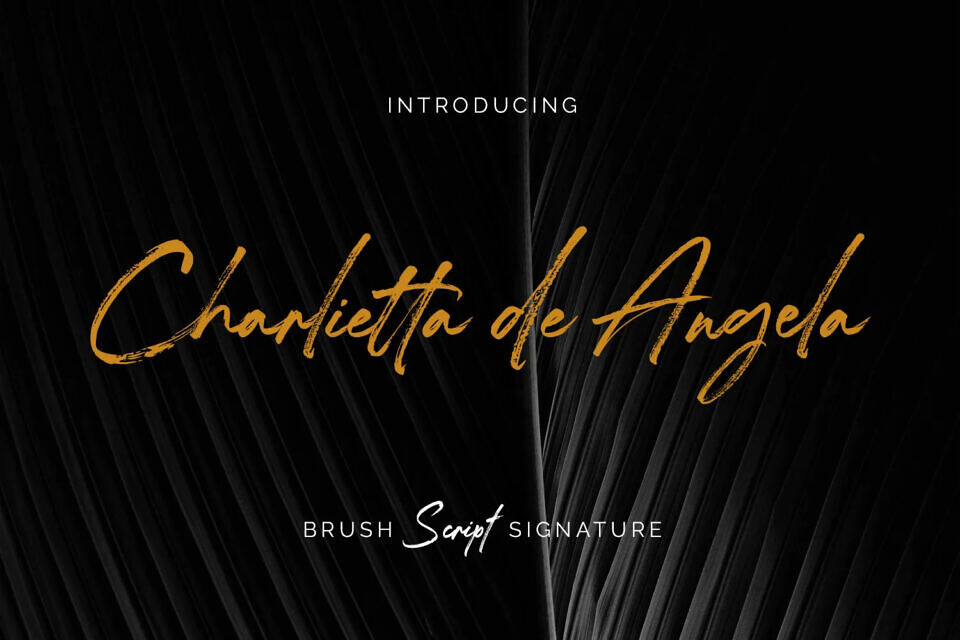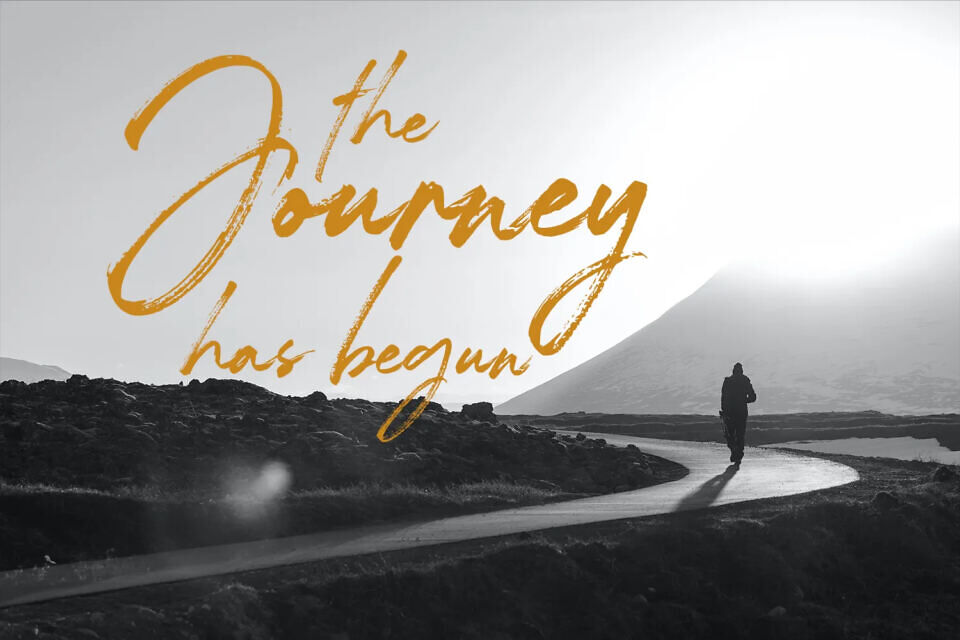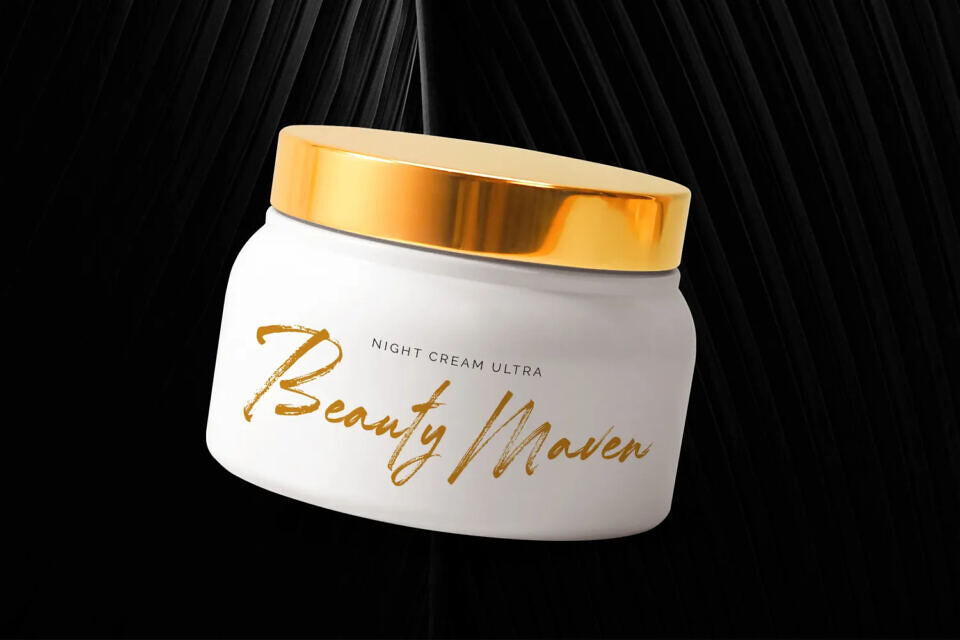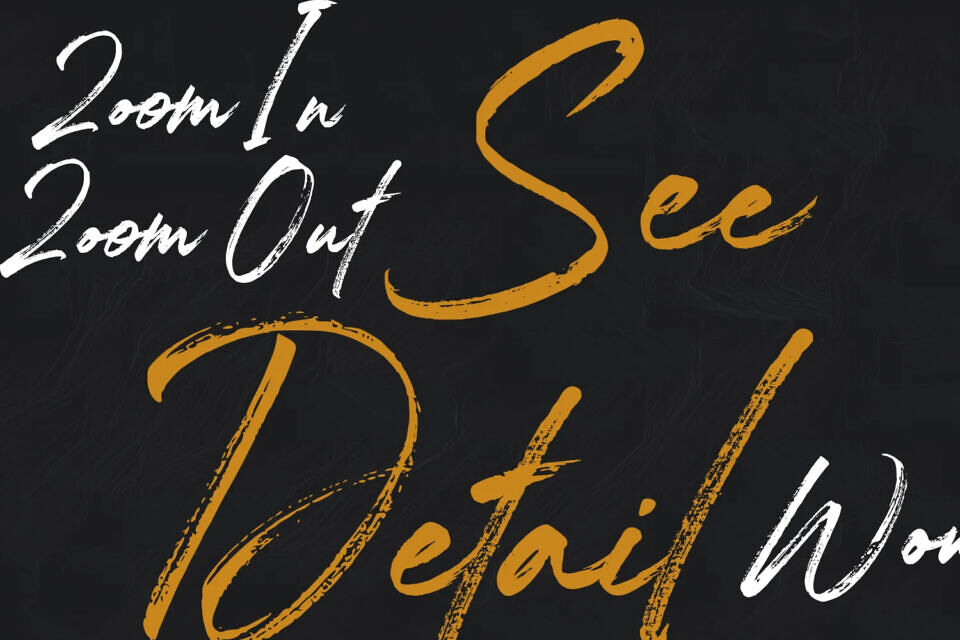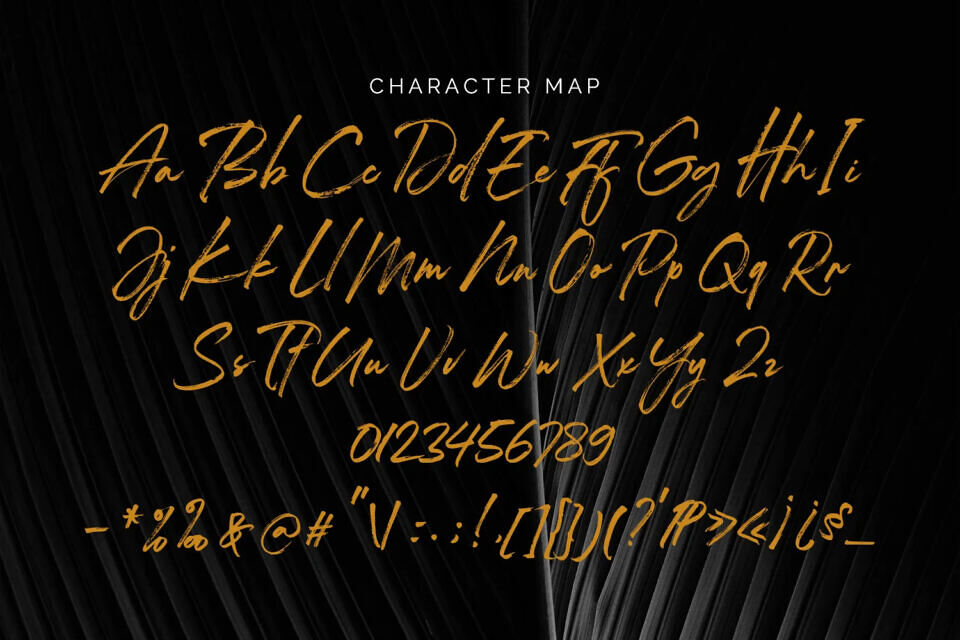
Charlietta de Angela Font
Meet Charlietta de Angela, a genuine brush script with a casual, handwritten feel. Created by brushing letters on paper and then digitizing them, this font has a charming, authentic quality.
Its relaxed, natural appearance adds a personal touch to your text. With ligature support, Charlietta de Angela is ideal for design projects, branding, logos, quotes, and product packaging, bringing a unique, handwritten look to your work.